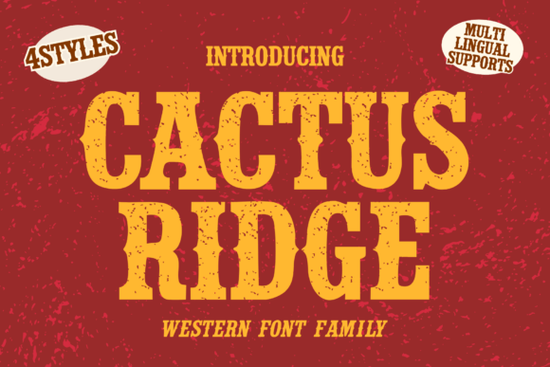
If you need a typeface that balances rugged western charm with everyday usability, Cactus Ridge Font delivers exactly that. This slab serif design brings a playful yet authentic feel to creative work, making it a reliable pick for designers, crafters, and small business owners. Whether you are building a brand identity, designing printable planners, or setting up a print-on-demand shop, the right font choice saves revision time and keeps visuals consistent.
What makes this western slab serif stand out?
Slab serifs are known for thick, block-like serifs that add weight and readability. This design leans into a western aesthetic without feeling cliché. The letterforms carry a handcrafted authenticity that feels approachable, while the sturdy structure keeps everything legible at smaller sizes. You will notice clean spacing and balanced proportions. If you want to see how the full character set looks in different sizes, you can browse this western typeface collection to test sample phrases before downloading.
Which projects work best with this style?
Because the font sits comfortably between playful and professional, it adapts to many creative tasks. Here is where it performs best:
- Branding and logos: Thick serifs create a strong silhouette that scales well on packaging and storefront signs.
- Printables and planners: Clean readability works nicely for calendar headers and journal covers.
- Invitations and cards: The western warmth adds personality to birthdays and seasonal mailings.
- Ads and social graphics: Bold letterforms catch attention quickly while remaining easy to read on mobile screens.
- Photo albums: The authentic texture pairs well with vintage filters and handwritten notes.
Match the font to the right medium to avoid forcing a decorative style into long paragraphs. Keep it for titles and accent text, then let a simpler sans serif handle the heavy reading.
How do I pair it with other typefaces?
Font pairing is less about matching styles and more about creating contrast. A heavy slab serif needs breathing room, so combine it with lighter companions. For an outdoorsy theme, you might explore a rugged highland bundle that shares similar weight but offers different shapes for subheadings. If your project leans toward sports or school spirit, testing bold outline lettering alongside it can give you that varsity feel without clutter.
For everyday business materials, contrast is your best tool. Pairing this western style with clean geometric alternatives keeps layouts modern. Alternatively, combining it with classic typewriter styles creates a balance between handcrafted charm and mechanical precision. Let each font do one job: one for impact, one for clarity.
Ready to put it to work?
Start by installing the files and creating a quick style sheet. Type out your brand name, a few headlines, and a short paragraph to check spacing. Adjust the tracking slightly if letters feel tight, and always preview at actual print size before exporting. Keep a simple rule in mind: let this slab serif lead the hierarchy, and support it with a neutral body font. Next step: run a test print on your intended paper stock, check the ink spread, and finalize your layout once the weight looks balanced.